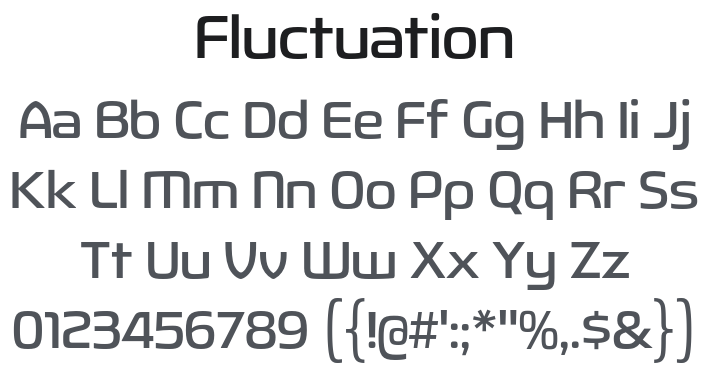
Fluctuation Font Family
About Fluctuation
Fluctuation takes its strength from the language of industrial design. Its forms echo the molded arcs, chamfers, and precision curves found in consumer electronics, furniture, and appliances — shapes engineered to be both beautiful and dependable. The lowercase n carries a subtle upward arc that softens the geometry, while the uppercase A's cathedral arch opens the counter, keeping heavy weights crisp and readable. That same shape resurfaces in the V, establishing a rhythm of engineered symmetry.